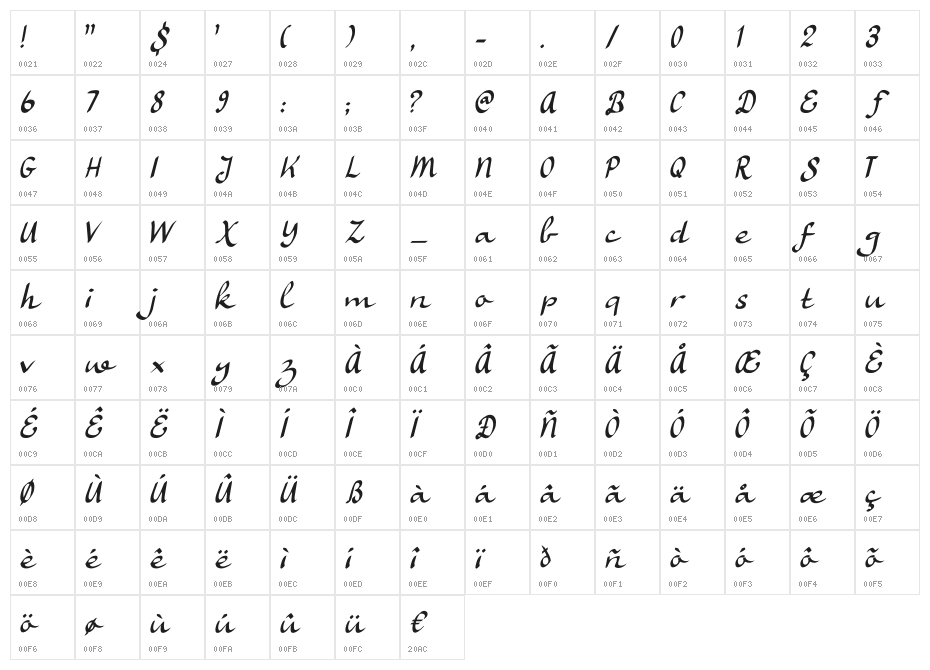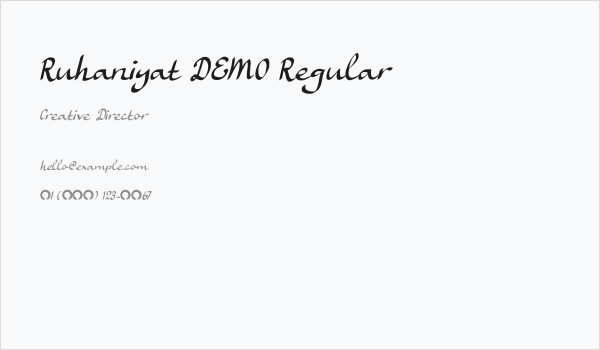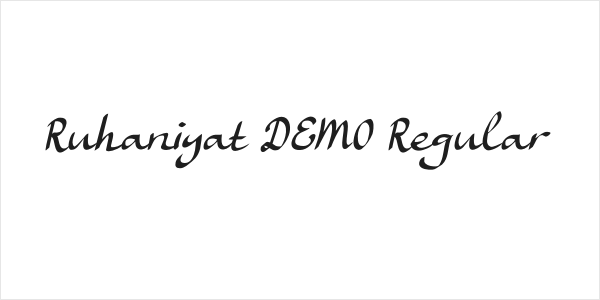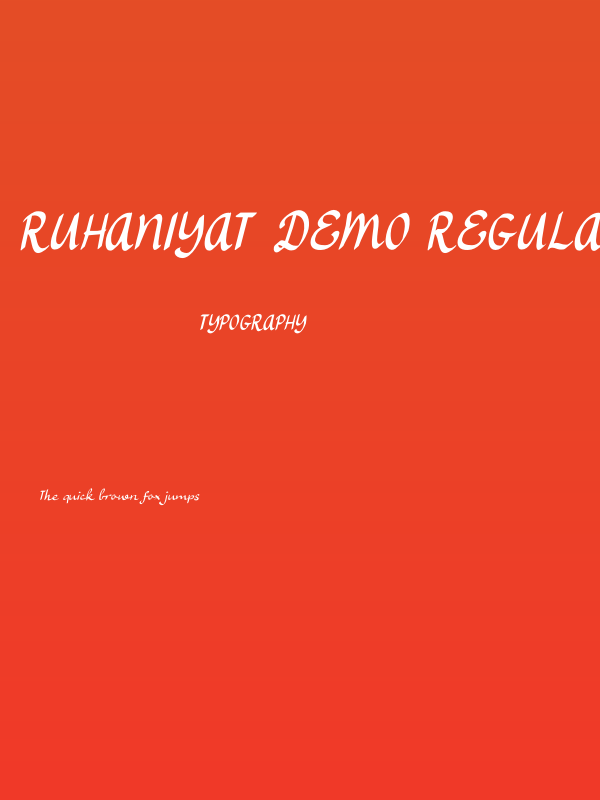
Ruhaniyat DEMO Regular Font
Ruhaniyat DEMO Regular Description
This font features a dynamic and expressive script style, characterized by its flowing, brush-like strokes that convey a sense of movement and elegance. The uppercase letters are bold and slightly slanted, giving them a dramatic flair, while the lowercase letters maintain a consistent fluidity, enhancing readability. The numerals are uniquely styled with a blend of thick and thin strokes, adding to the artistic feel of the font. Special characters are creatively designed, incorporating brush stroke elements that align with the overall aesthetic. This font's distinctive style makes it suitable for projects that require a touch of sophistication and creativity.
Use CaseLogos, Headlines, Artistic designs
Proposed ProjectsIdeal for branding, invitations, artistic posters, and any design project that seeks to convey elegance and creativity.